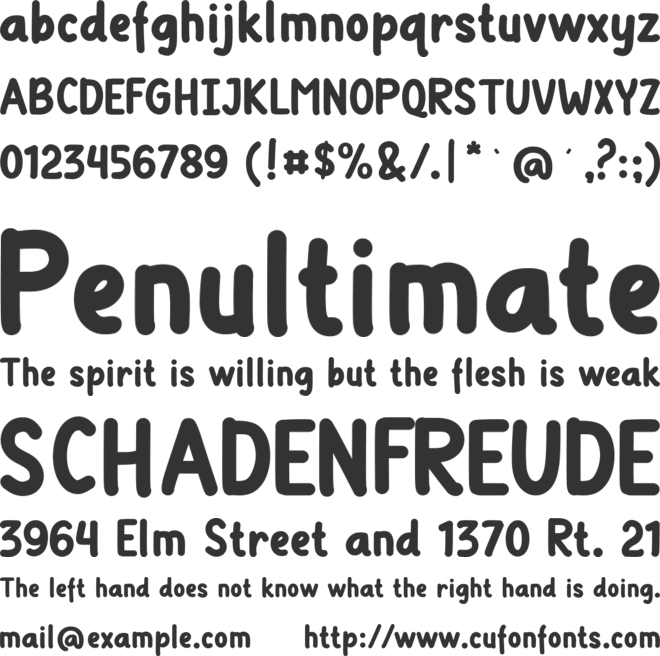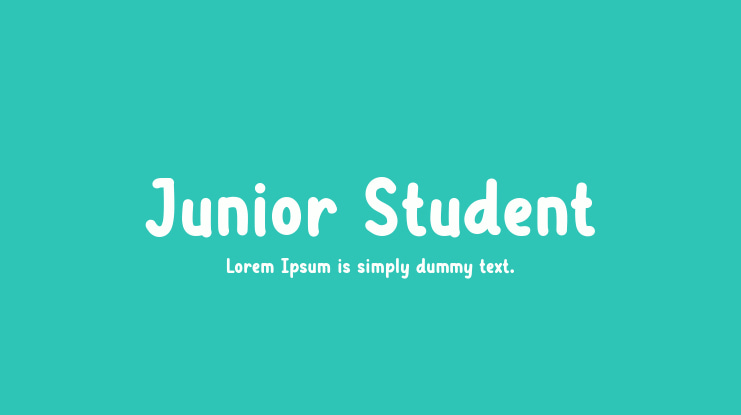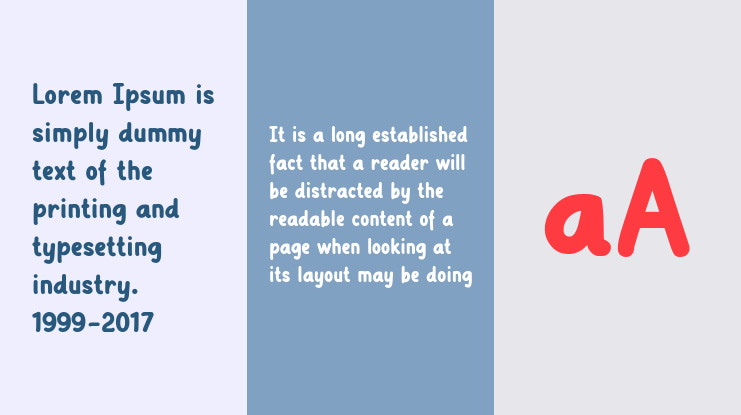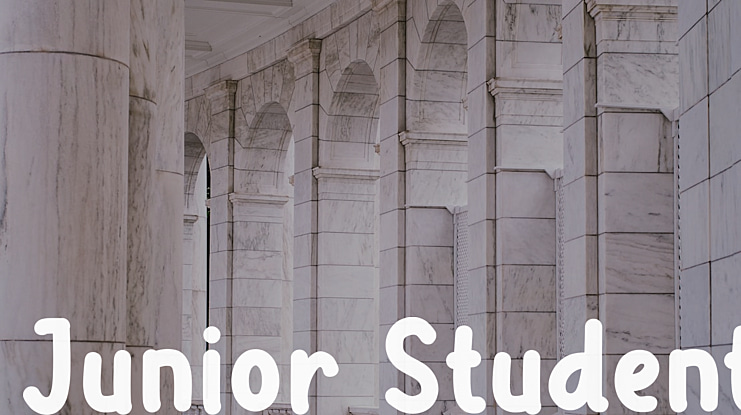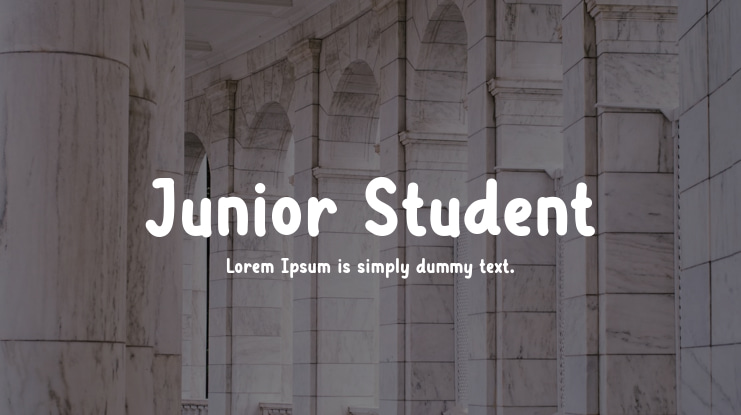
Junior Student Font
deedeetype
Junior Student is a versatile and user-friendly handwritten font. Regardless of the subject, this font is a valuable addition to your collection, as it can enhance any creative project.